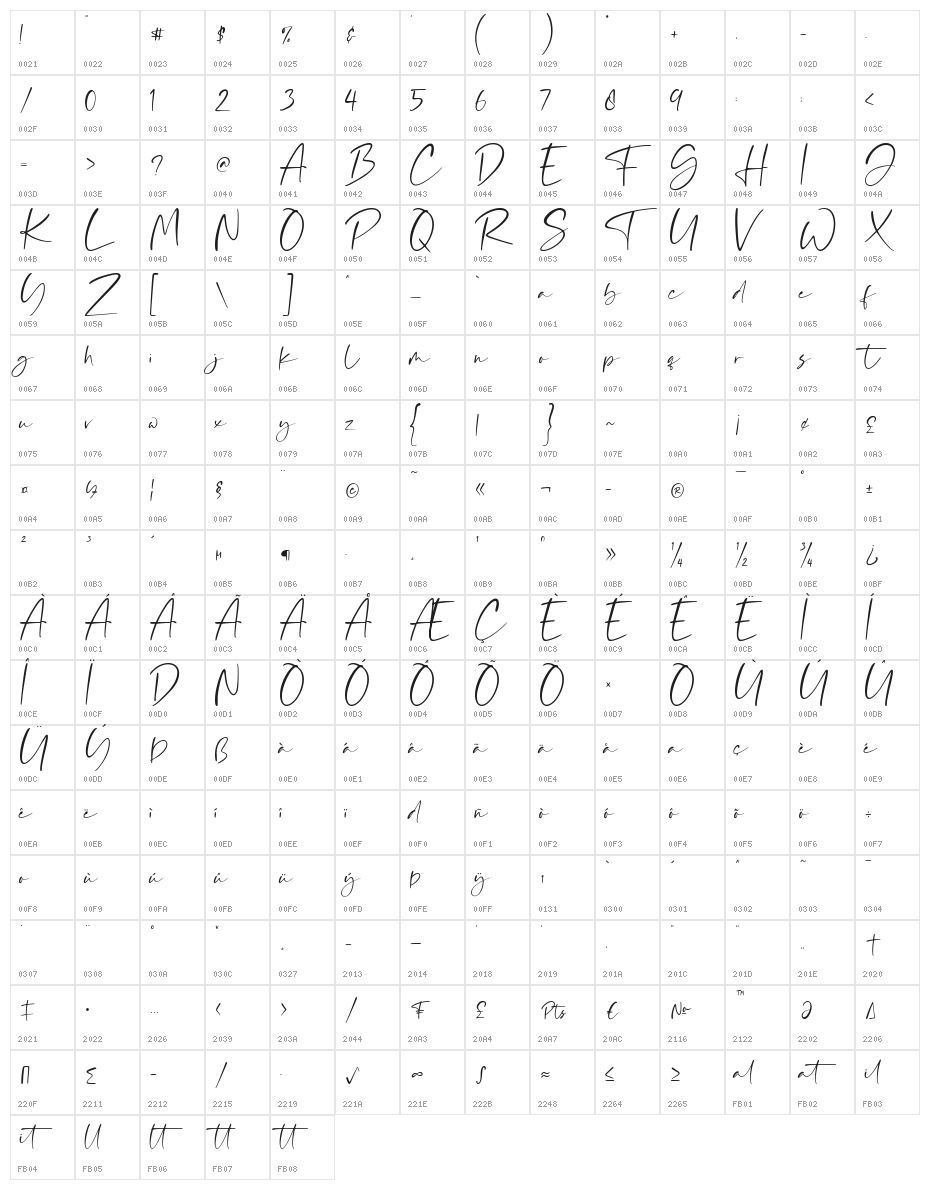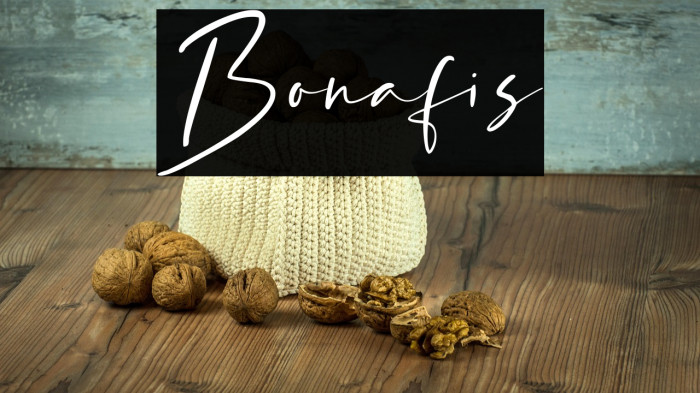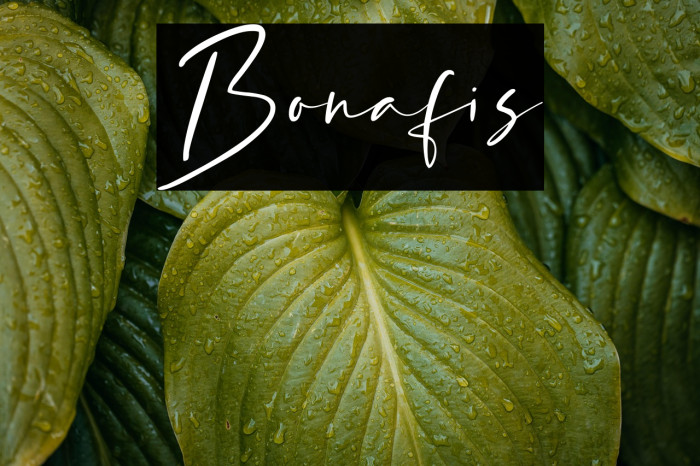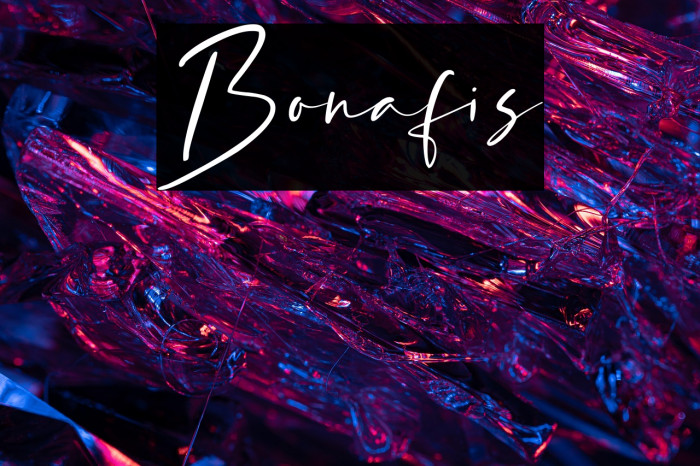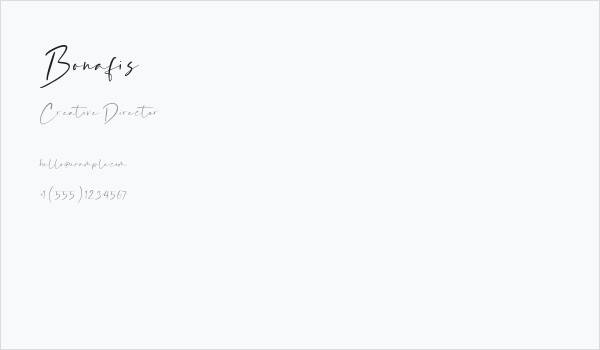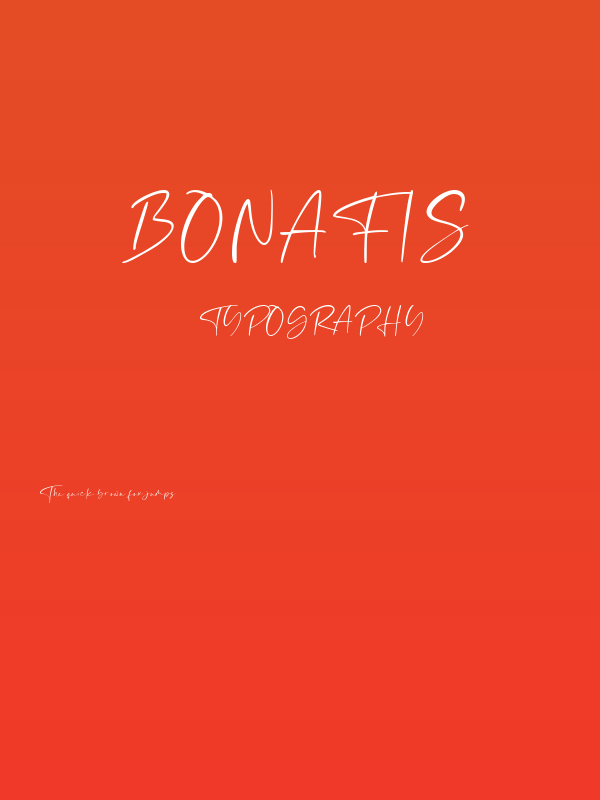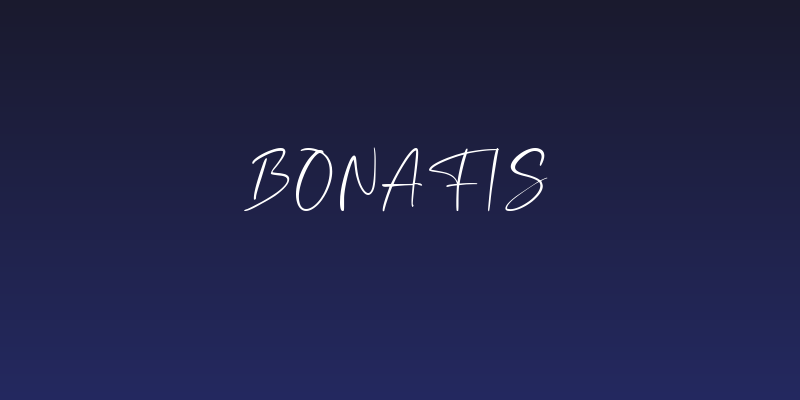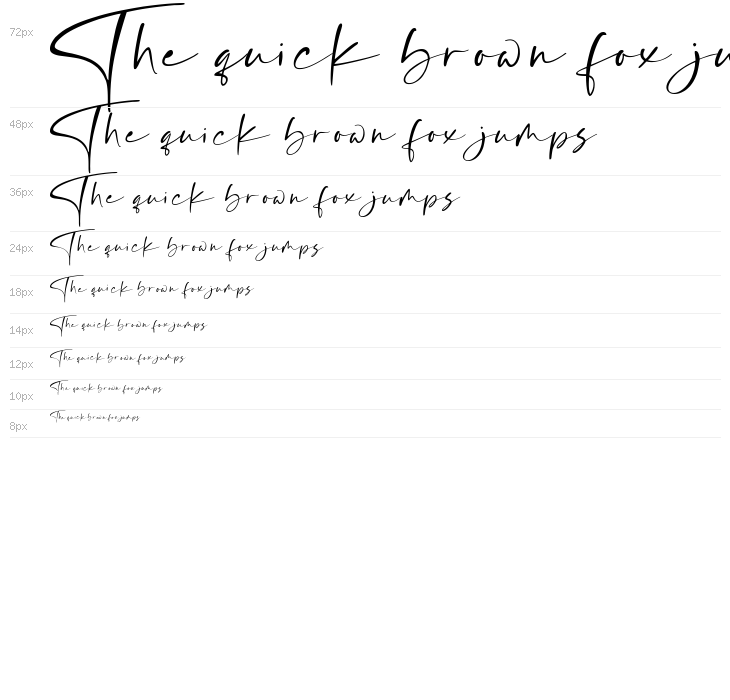
Bonafis Font
Bonafis Description
This font exudes a modern and elegant handwritten style, characterized by its fluid and dynamic strokes. The uppercase letters are tall and slender, with a slight slant that adds a sense of movement and grace. The lowercase letters maintain a consistent flow, with some characters featuring unique loops and curves that enhance its artistic appeal. The numerals are clear and legible, maintaining the same handwritten aesthetic. Special characters are thoughtfully designed to complement the overall style, making this font versatile for various creative applications.
| Proposed Projects | Ideal for wedding invitations, personal branding, social media graphics, and artistic projects. |